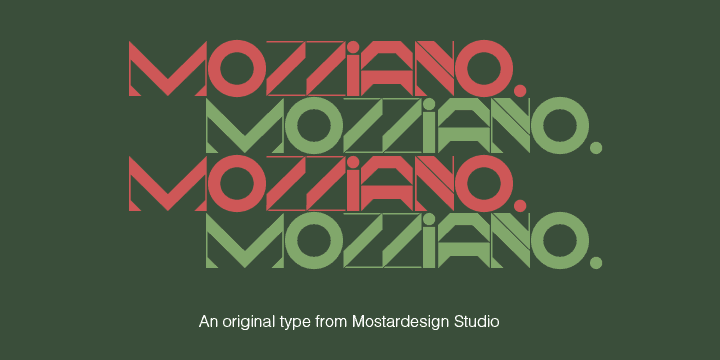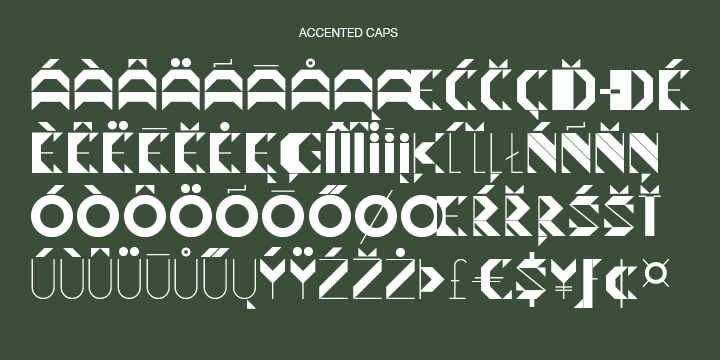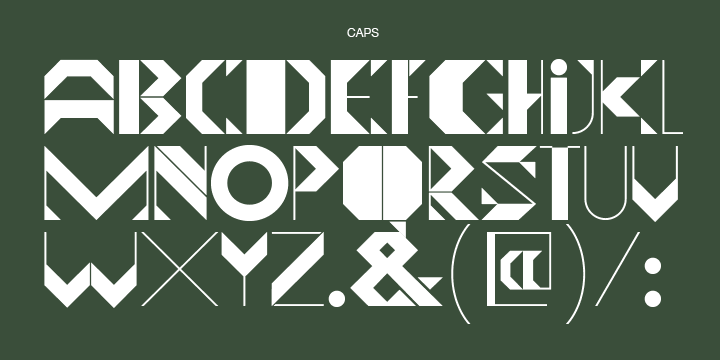
Mozziano is a novelty font published by Mostardesign.
MOZZIANO is an elegant cross between geometric and round shapes. Its post-retro style opposes also fine and thick lines. This font can be used for very short texts however it is particularly effective for headlines in larger point sizes so that its details are emphasized.